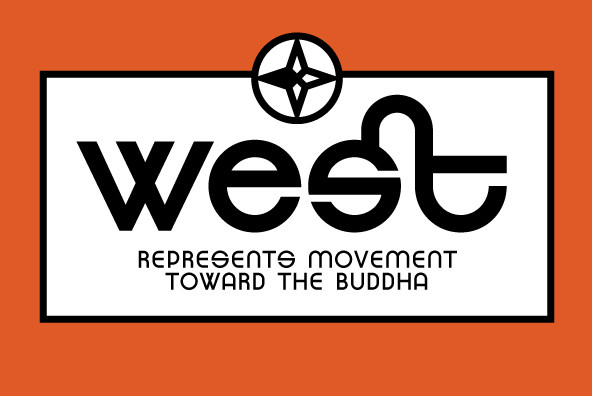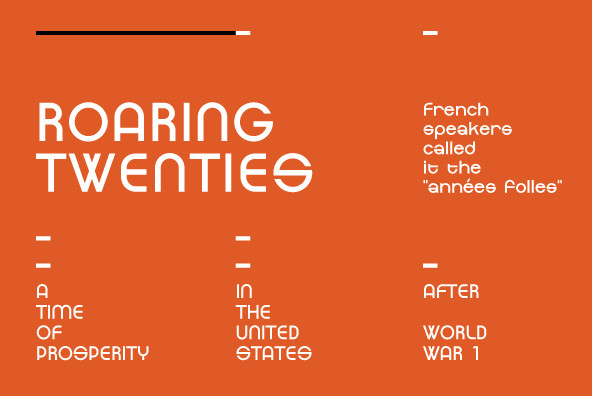
Composed from an old logo for Giro d'Italia on telly, and just smitten by the truly ugly type: just ruler and compass work, no intakes or optical corrections whatsoever.